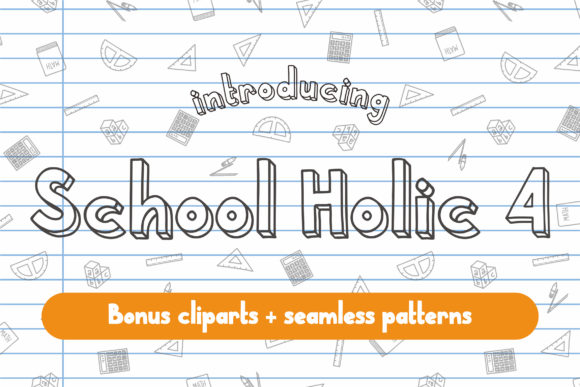
**School Holic 4 Font: Where Whimsy Meets Education**
In the realm of learning, where knowledge and imagination intertwine, there exists a font that captivates the essence of childhood wonder and scholastic enthusiasm. School Holic 4, a creation of Orenari, is not just a font; it's an invitation to a world where education and fun dance hand in hand.
**A Burst of Playful Charm**
School Holic 4's playful charm is undeniable, its every character brimming with an infectious energy that will infuse your projects with an irresistible sense of joy. Let your words dance across the page in a merry procession, each letter a playful wink inviting your readers to embark on an educational adventure.
**Whimsical Echos of Childhood Dreams**
With each stroke of School Holic 4's characters, you'll evoke the carefree spirit of childhood, where imagination reigns supreme. Whether crafting school projects, designing posters for educational events, or creating invitations for children's parties, this font will transport you back to a time when learning was a joyous exploration.
**A Splash of Color in the Educational Landscape**
Unleash the vibrant hues of your imagination and paint your words in School Holic 4's captivating palette. With this font as your artistic brush, transform ordinary text into vibrant expressions that burst with energy and creativity. Engage your audience with a visual symphony of colors that will ignite their curiosity and spark their imagination.
**Perfect for School-Themed Endeavors**
School Holic 4 is the perfect font for any school-themed project. Its whimsical characters will add a touch of fun and excitement to school presentations, reports, and projects. It's also a great choice for creating posters, flyers, and other promotional materials for school events.
**Catering to the Unique Needs of Schools**
School Holic 4's versatility extends beyond aesthetics, delving into the practical needs of the educational world. Its clean, legible characters ensure effortless readability, making it an ideal choice for educational materials intended for younger audiences. The font's dyslexia-friendly design further enhances its inclusivity, ensuring that all students have equal access to the joy of learning.
**Unleash Your Creative Spirit**
Unleash your creative spirit and embrace the boundless possibilities of School Holic 4. Allow your imagination to soar as you craft designs that capture the essence of childhood wonder and educational zeal. From classroom projects to personal endeavors, this font will be your trusted companion, transforming your ideas into visually stunning creations.
**Enhance Your Educational Journey**
With School Holic 4 as your font of choice, you'll embark on an educational journey like no other. Its playful charm will ignite a spark of creativity within you, while its practical features will ensure that your words are conveyed with clarity and impact. Let this font be your guide as you navigate the world of education, leaving an indelible mark on the minds of your audience.